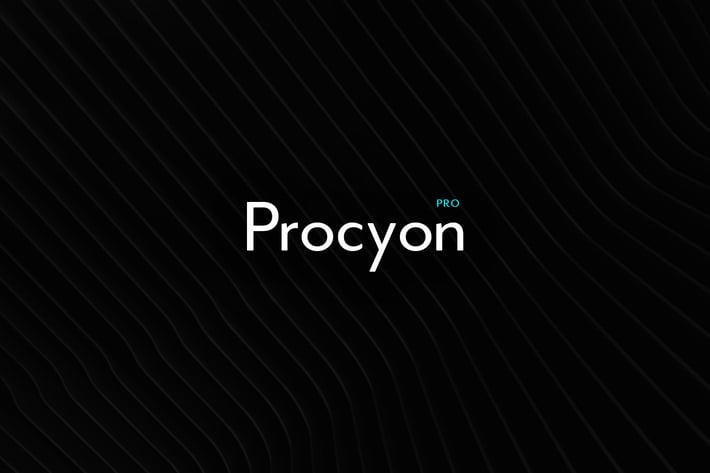
Procyon - Modern Typeface + WebFont
Procyon Sans Typeface
Procyon Sans is a modern Sans Serif typeface From Devant family, very much suitable for Film Posters, headlines, Block letter, Subheading, Logo Designs, Big Banners. Classic & Decorative Typography Web Designs.